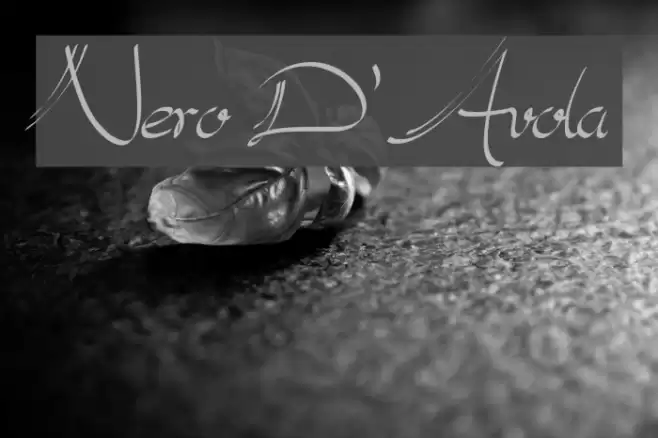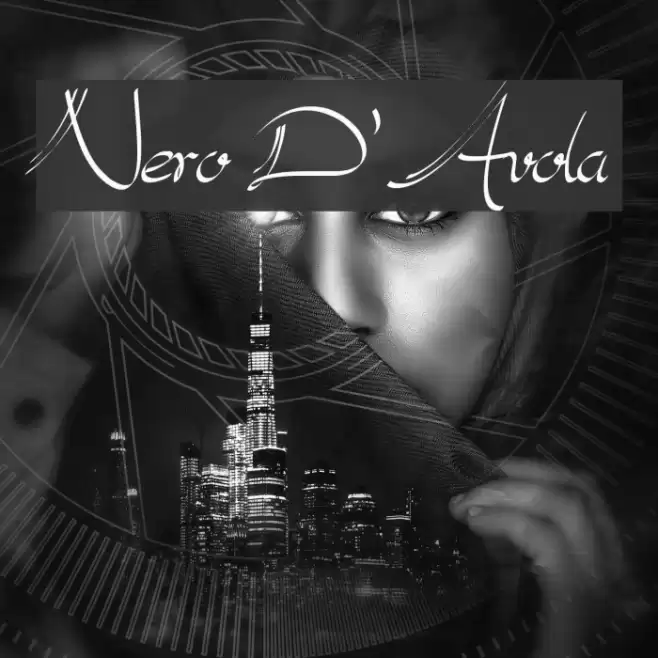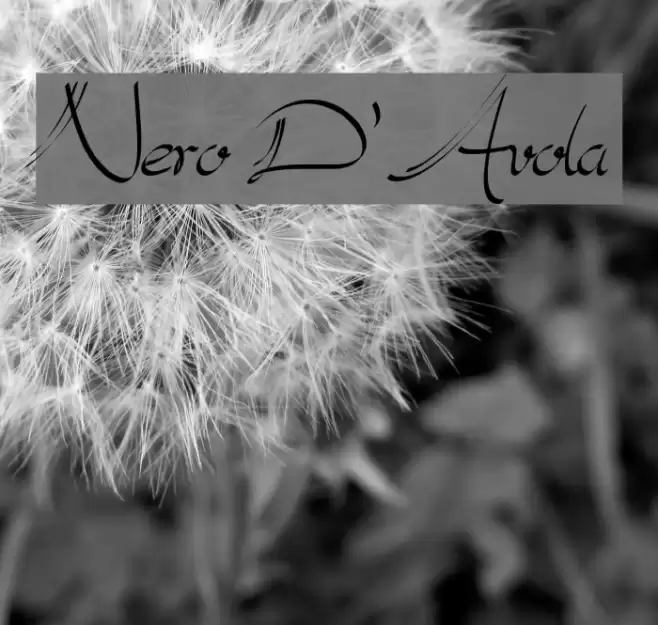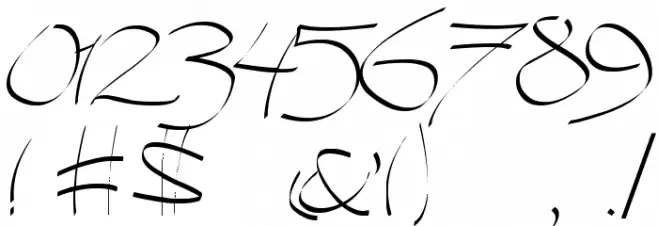
Nero D'Avola Font
Nero D'Avola Description
This font is an elegant and artistic script style, characterized by its flowing and interconnected letterforms. The uppercase letters exhibit a dramatic flair with extended strokes and intricate curves, while the lowercase letters maintain a more subdued yet equally graceful appearance. The numbers and special characters follow the same stylistic approach, ensuring consistency across all elements. The overall design is reminiscent of calligraphy, with a modern twist that adds a touch of sophistication. The font's delicate lines and high contrast between thick and thin strokes contribute to its refined aesthetic, making it suitable for projects that require a touch of elegance and creativity.
An elegant script font with flowing, interconnected letterforms and high contrast strokes from Uncategorized fonts.